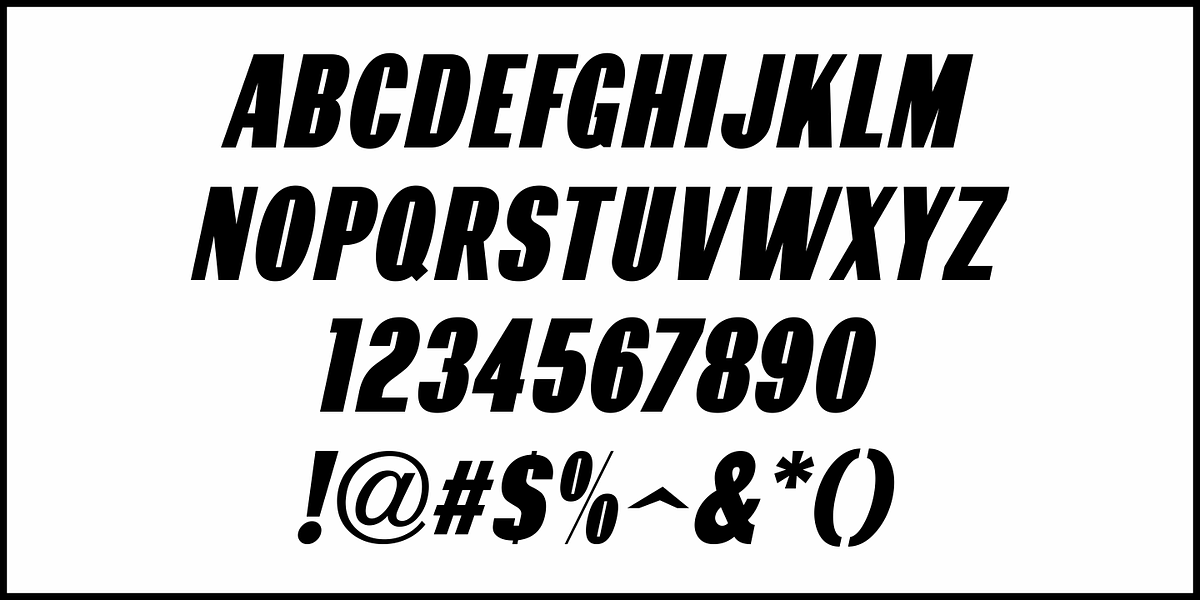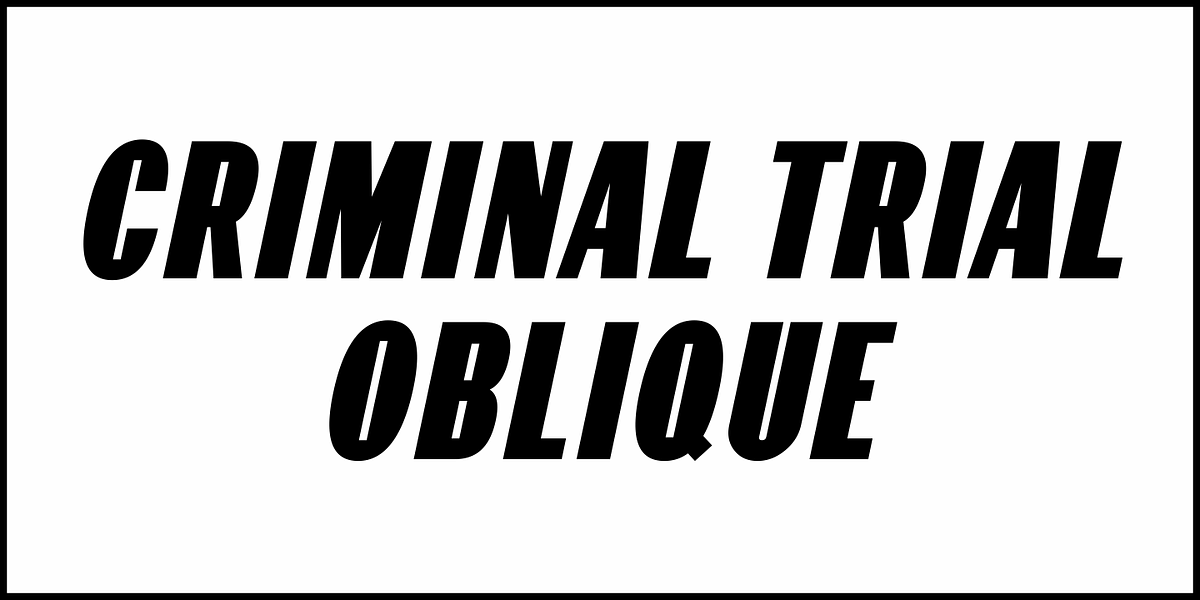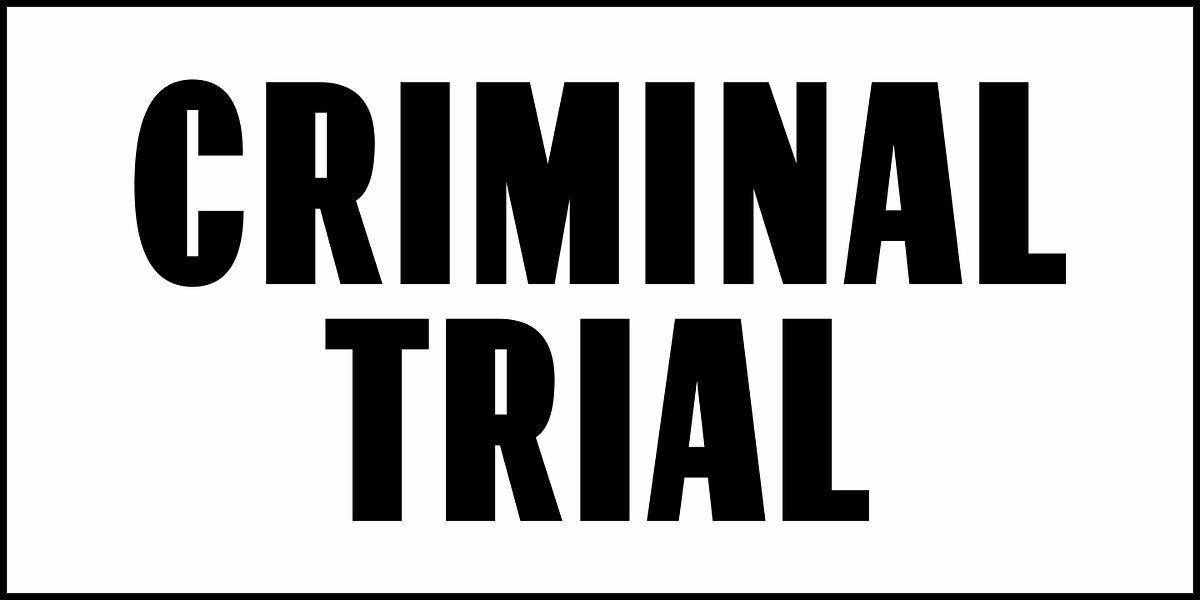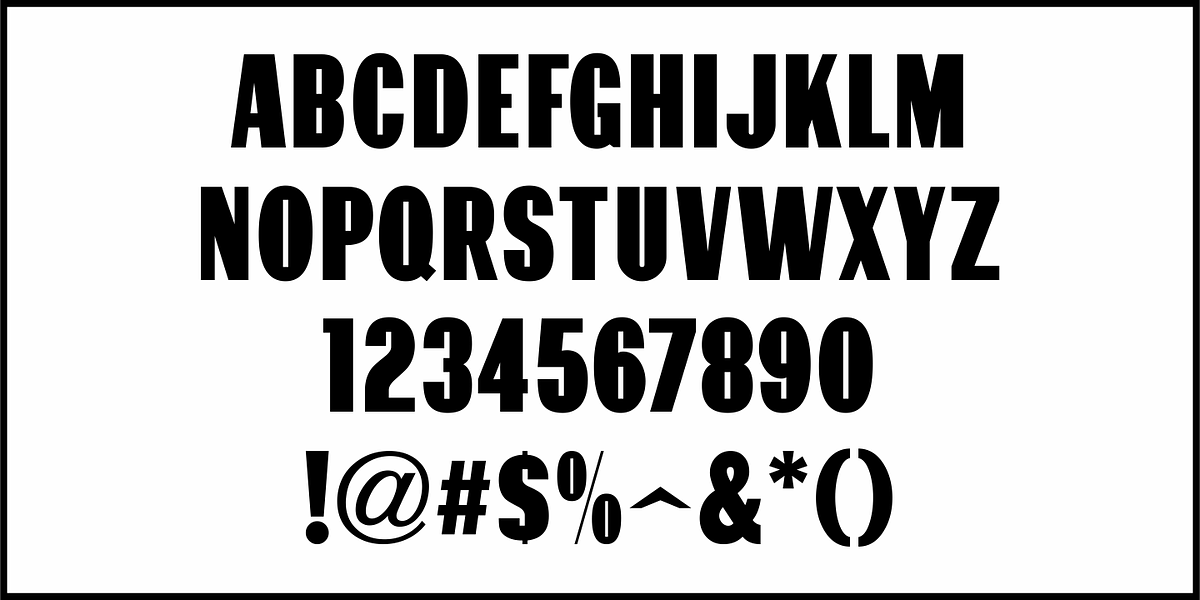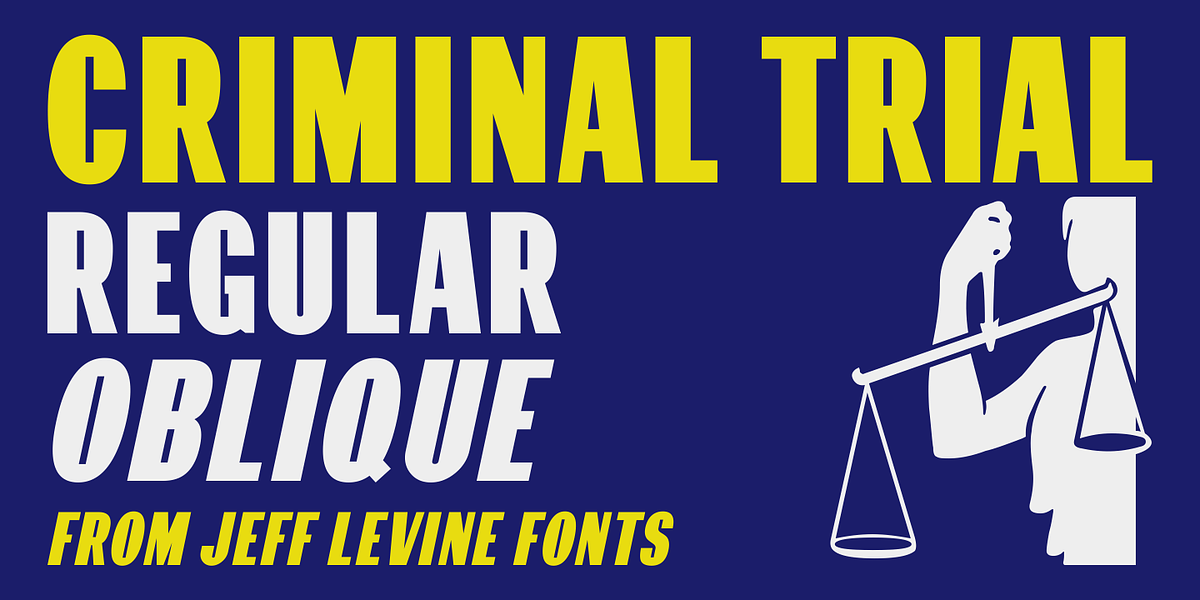
Criminal Trial JNL
An ad found within the pages of the Sept. 7, 1939 issue of Motion Picture Daily for "The Man They Could Not Hang" had the film's title hand lettered in a slightly stylized bold sans serif design.
This is now available as Criminal Trial JNL, in both regular and oblique versions.